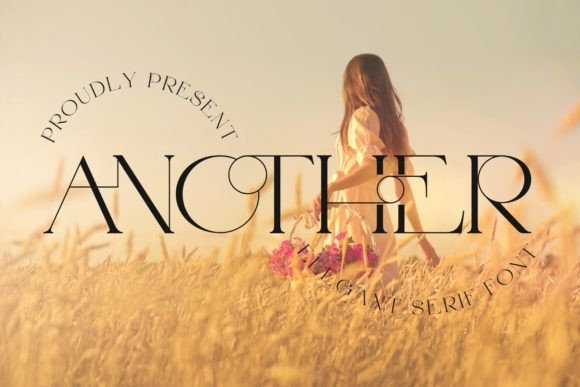
Unleash Your Creativity with Another Elegant Font
Have you ever stared at a blank page, waiting for inspiration to strike? That’s where I find myself often, searching for the perfect font to bring my design to life. It’s a moment of pure creative chaos, but also a thrilling opportunity to discover something new and beautiful. And that’s exactly what happened when I stumbled upon Another Elegant Font.
This stunning serif font is a masterclass in elegance and sophistication, with a classic style that’s sure to elevate any design. Whether you’re creating a logo, branding, or editorial content, Another Elegant Font is the perfect choice. With its OpenType features and 100+ ligatures, it’s a valuable tool for designers looking to add a touch of luxury to their work.
Key Features of Another Elegant Font
- Unique Characteristics: Elegant and sophisticated design, with subtle flair and curves that evoke a sense of luxury and refinement
- Font Weight: Available in Light, Regular, Medium, and Bold weights, with subtle variations in line width and stroke
- Kerning and Ligatures: Includes advanced kerning and ligature pairs for improved text flow and readability
Designer Review: Another Elegant Font
As a designer, I was excited to try out “Another Elegant Font” and see if it lived up to its name. Overall, I was impressed with its elegant and refined aesthetic. ✨ The font’s subtle flair and curvaceous lines make it perfect for high-end branding, luxury packaging, and other projects where sophistication is key. ✨
- Elegant and refined aesthetic
- Perfect for high-end branding and luxury packaging
- Curvaceous lines add a touch of sophistication
Limitsations:
- Font may be too ornate for some projects, making it difficult to read at smaller sizes
- Lack of versatility, as it’s primarily suited for formal and high-end designs
- Some characters may require manual tweaking to achieve the desired look
- ⚠️ Limited language support may be a concern for international projects
In conclusion, “Another Elegant Font” is a beautiful and refined font that shines in high-end projects. However, its limitations may make it less versatile for everyday use. If you’re looking for a font to add a touch of luxury to your design, this might be the perfect choice. But if you need a font that’s adaptable and easy to read in various contexts, you may want to consider other options.
Practical Application Guide for “Another Elegant Font”
For a more elegant look, pair “Another Elegant Font” with a minimalist background and simple design elements.
For a more elegant look, use “Another Elegant Font” in conjunction with subtle textures and shadows.
For a more elegant look, pair “Another Elegant Font” with a simple background and minimal graphics.
“Another Elegant Font” is ideal for:
- Menus and pricing lists
- Any design that requires a touch of sophistication and elegance